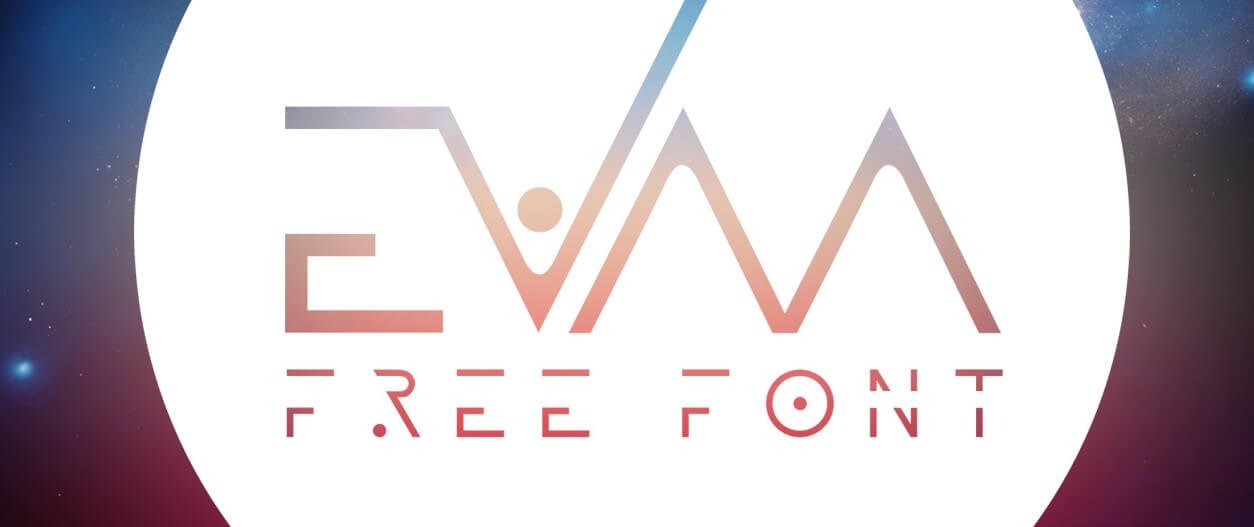
Introducing Evaa Typeface. Eva – the free font is ideal for show use, branding, emblems, that can be designed din adobe photoshop or illustrator and lots more.